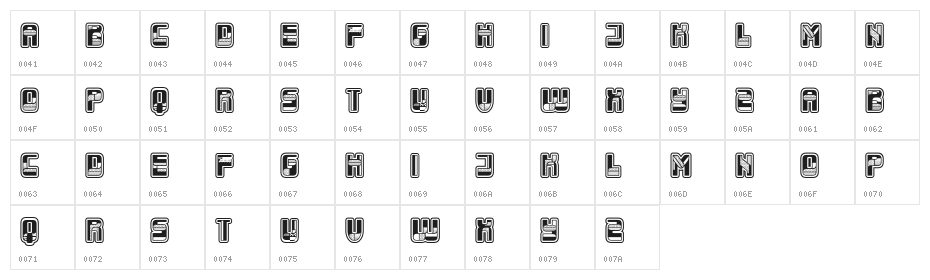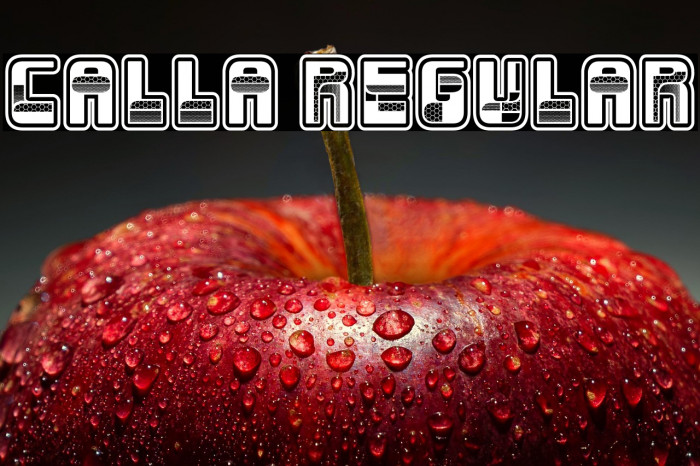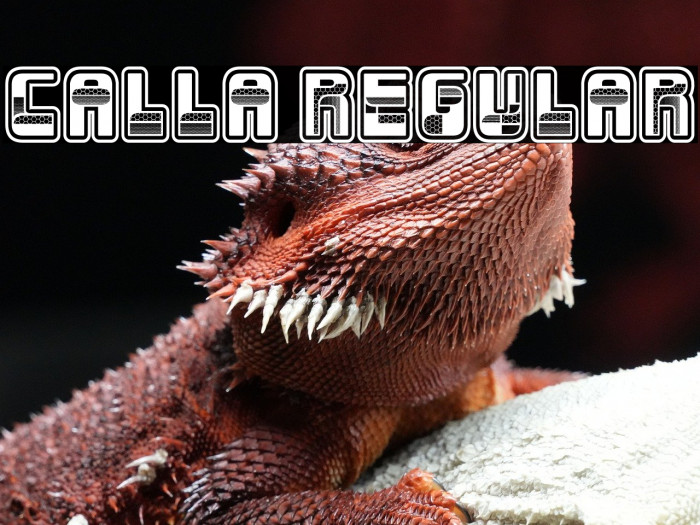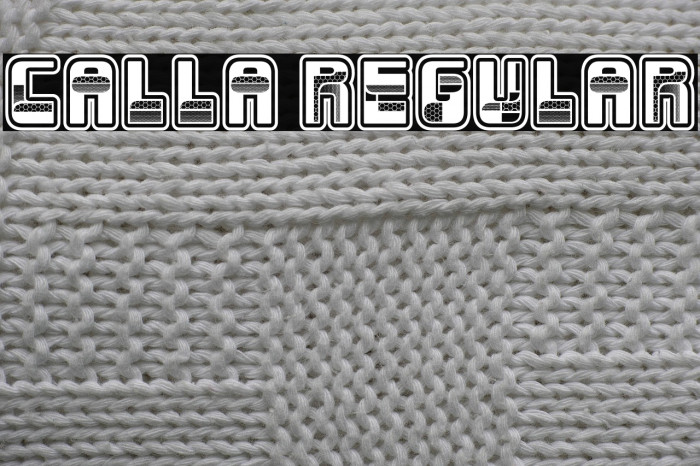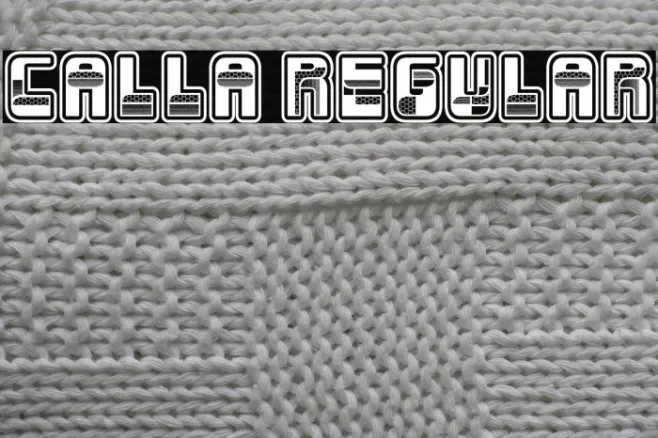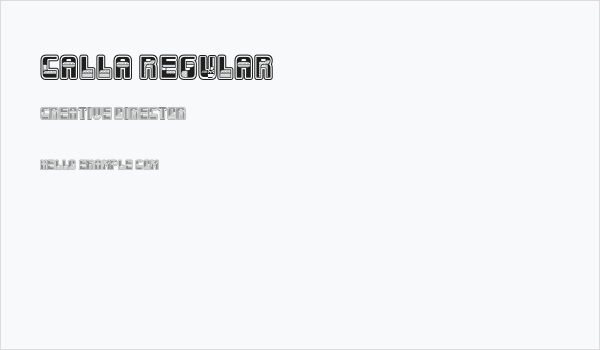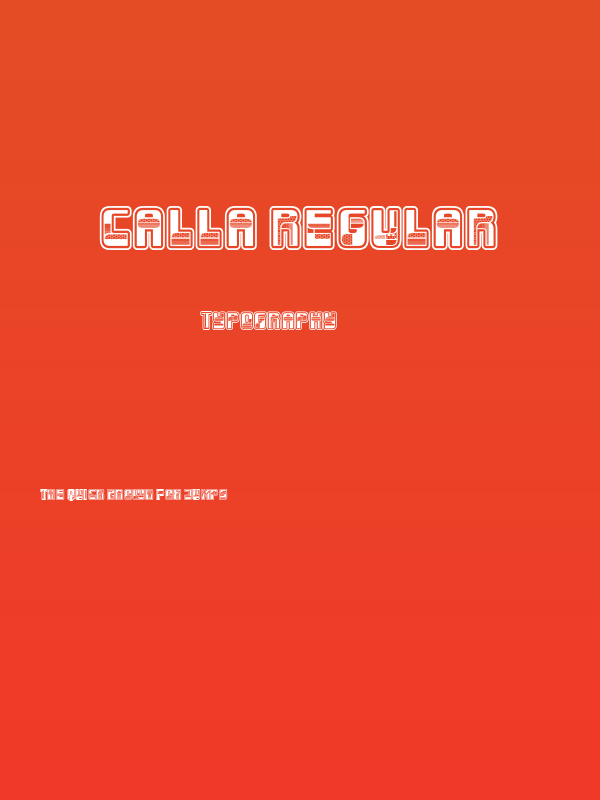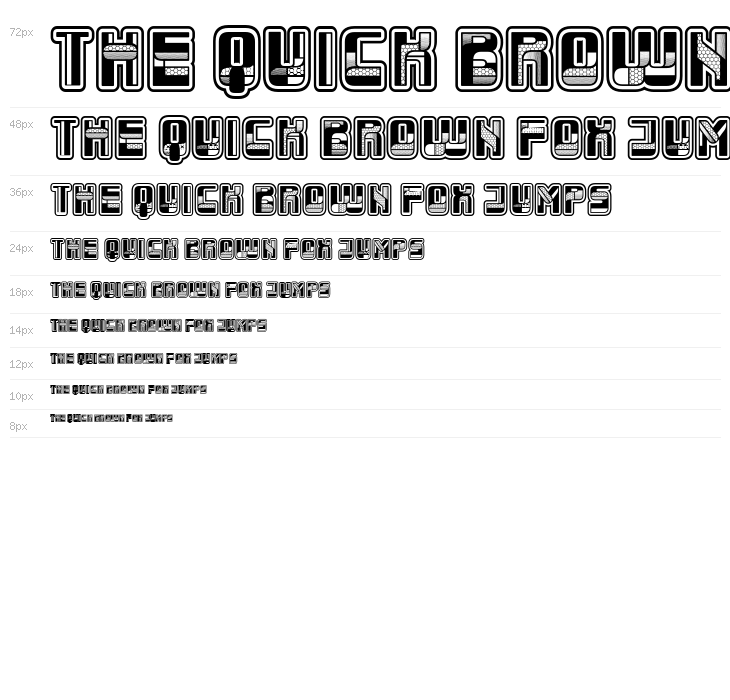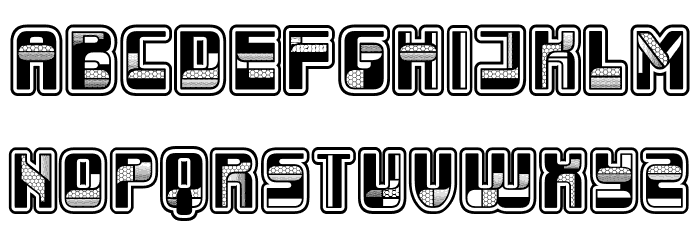
Calla Regular Font
Calla Regular Description
This font features a bold, decorative style with a unique pattern inside each character, reminiscent of a textured or woven design. The letters are outlined with a thick border, adding to their striking appearance. The uppercase characters are uniform in height and width, creating a cohesive look. The design is playful yet structured, making it suitable for eye-catching displays. The intricate detailing within each letter adds depth and interest, making it stand out in any design project.
| Proposed Projects | Ideal for posters, branding, merchandise, and any project requiring a bold, eye-catching typeface. |